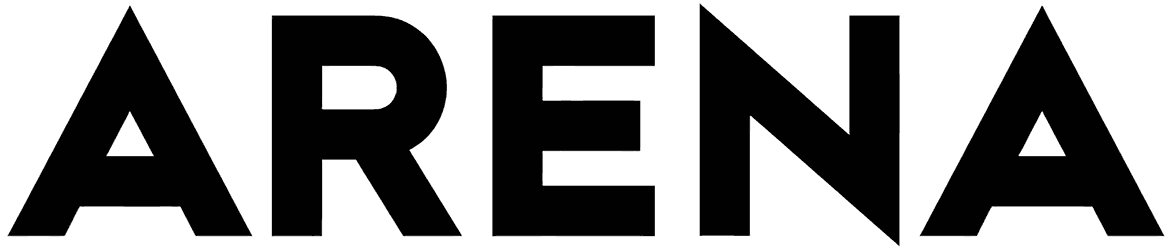
Arena Font
Arena can set the tone of your event and make a bold statement. This techno font offers you two styles, solid and hollow styles, which can multiply the effectiveness of your content without the need for numbers and small letters.
The power of this sans serif font increases when you combine it with a space and galaxy background on posters and advertising banners in large dimensions, and light up your lucky star to attract the audience.